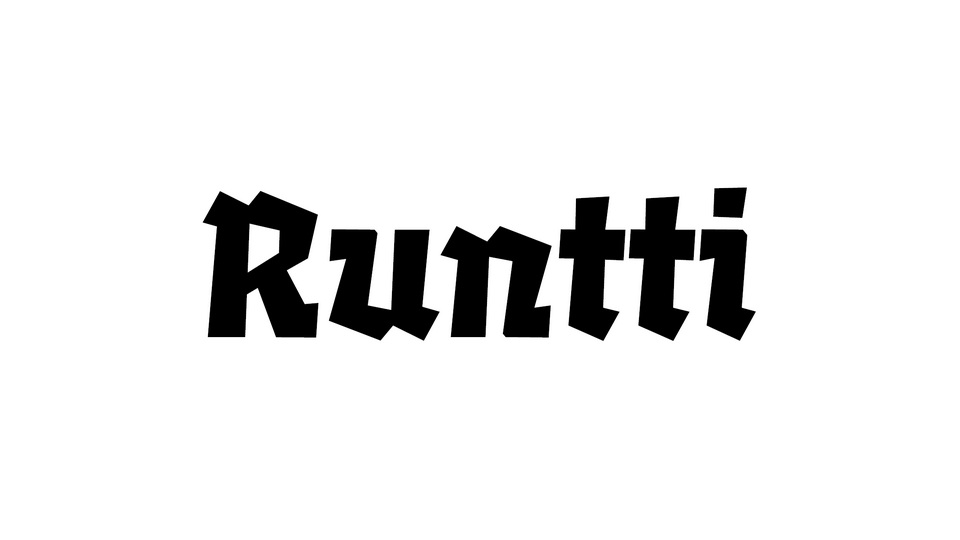
Download Runtti font, a striking curveless display typeface with a subtle forward slant that adds momentum and attitude to every word. Stripped of curves, its angular letterforms embrace a raw, geometric boldness.
Designer: Juuso Haimilahti